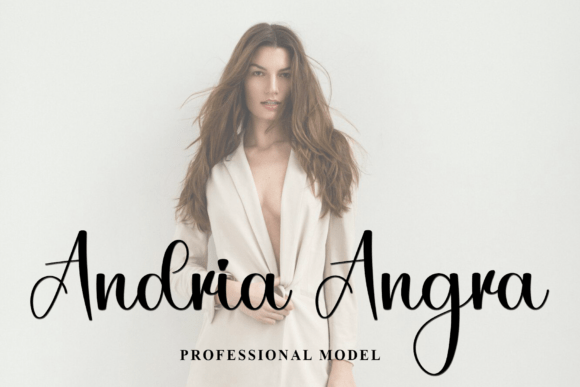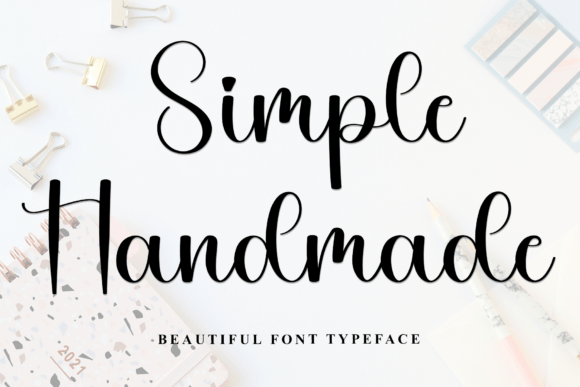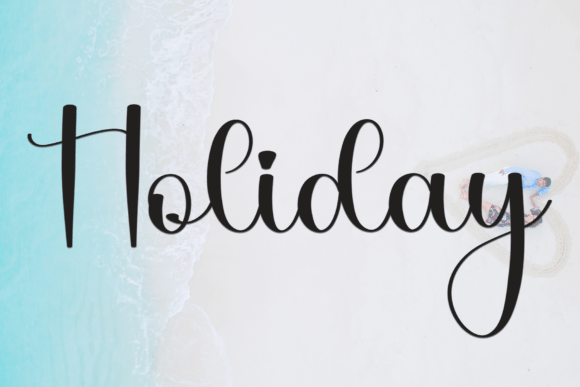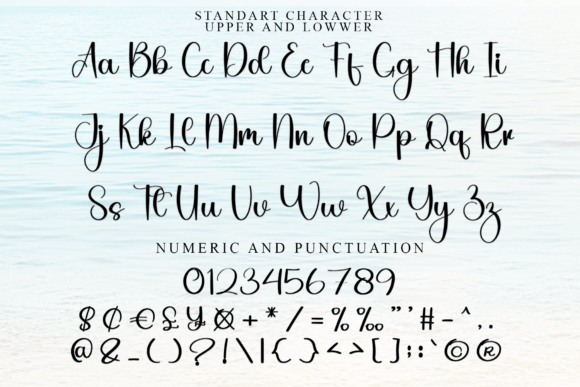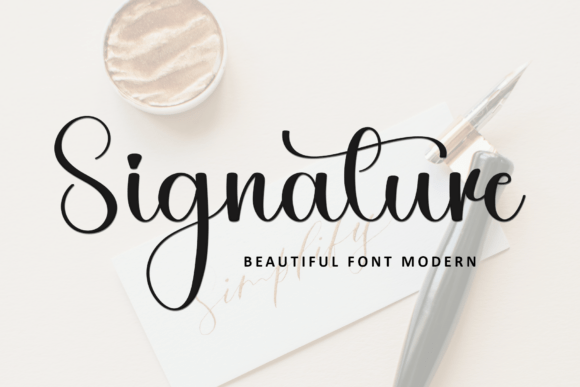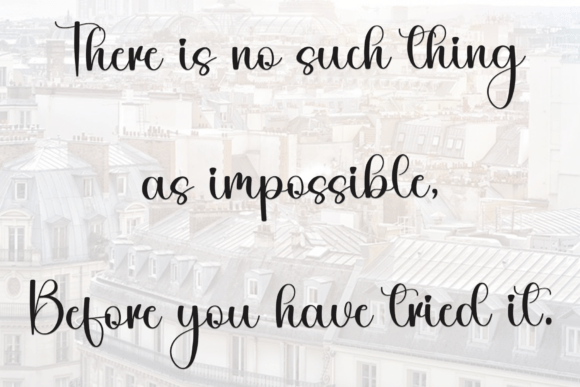
Australia Font: Elevate Your Designs with a Unique and Versatile Typeface
Are you tired of using the same old fonts for your design projects? Look no further than the Australia Font, a beautiful and eye-catching typeface that is sure to make your creations stand out. With its soft, unique touch and distinctive strokes, this font is perfect for designers, crafters, and artists looking to add a special touch to their work.
A Font Like No Other
The Australia Font is designed with a unique and special character that sets it apart from other fonts. Its soft and delicate strokes give it a natural and effortless look, making it perfect for a wide range of design projects, from crafts and art to branding and advertising. Whether you’re looking to create a logo, brochure, or social media graphic, this font is sure to make your design shine.
One of the best things about the Australia Font is its versatility. With a wide range of characters, you can use this font for a variety of design projects, from simple and elegant designs to more complex and creative ones. Whether you’re a professional designer or a DIY crafter, this font is perfect for anyone looking to add a personal touch to their work.
Perfect for a Wide Range of Products
The Australia Font is ideal for a wide range of products, from business cards and brochures to t-shirts and mugs. Its natural and effortless look makes it perfect for designs that need to look friendly and approachable. Whether you’re creating a logo for a new business or designing a social media graphic, this font is sure to make your design stand out.
Enhance Your Designs
The Australia Font is designed to enhance your designs, making them appealing to a wide range of audiences across different artistic and creative fields. Its unique and special character is sure to grab attention and make your design memorable. Whether you’re a professional designer or a DIY crafter, this font is perfect for anyone looking to take their designs to the next level.
Why Choose the Australia Font?
So why choose the Australia Font for your design projects? Here are just a few reasons:
- Unique and special character: The Australia Font has a distinctive look that sets it apart from other fonts.
- Versatile: With a wide range of characters, this font is perfect for a variety of design projects.
- Perfect for a wide range of products: From business cards to t-shirts, this font is ideal for a wide range of products.
- Enhances your designs: The Australia Font is designed to make your designs stand out and grab attention.
In conclusion, the Australia Font is a beautiful and eye-catching typeface that is perfect for designers, crafters, and artists looking to add a special touch to their work. With its unique and special character, versatility, and compatibility with a wide range of applications, this font is sure to enhance your designs and make them appealing to a wide range of audiences. So why wait? Download the Australia Font today and take your designs to the next level!